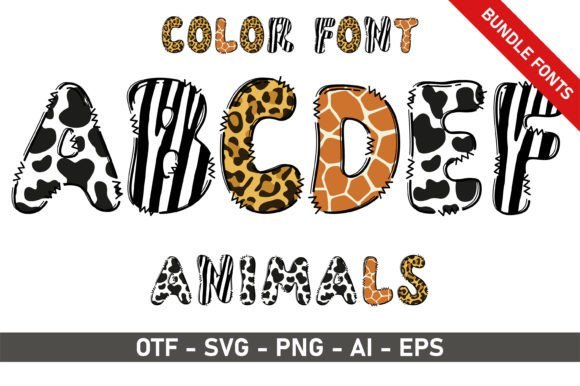
Bring Whimsy to Your Designs with the Animals Bundle Font
Do you remember the moment when you stumbled upon a font that made your design dreams come true? For me, it was the first time I saw the Animals Bundle Font in action. Its playful charm and vibrant colors instantly made me want to create something magical. Whether it’s a children’s book, a poster, or a greeting card, this font has the power to transport your audience to a world of wonder and excitement.
The Animals Bundle Font is a versatile and delightful collection of fonts designed to add a touch of whimsy to your designs. Its black version is perfect for projects that require a bold and easy-to-read font, while the color version offers a kaleidoscope of colors to match your creative vision. With its compatibility with popular cutting machines like Cricut and design programs like PhotoShop and Illustrator, this font is a valuable asset for any designer looking to add a playful twist to their work.
- Font Family: A comprehensive bundle of animal-themed fonts, including cats, dogs, birds, and more.
- Unique Characteristics: Each font features intricate details and realistic designs, making it perfect for animal-themed projects, logos, and branding.
- Number of Fonts: Includes over 100 unique animal-themed fonts to choose from, ensuring you’ll find the perfect fit for your design.
Review: Animals Bundle Font
Overall, I think the Animals Bundle Font is a cute and playful addition to any design project. Here are some of the things that I like about it: ✨
- The unique animal designs add a fun and whimsical touch to any text.
- The font is highly customizable, allowing users to change the color, size, and even add custom animations.
- The font is well-suited for a variety of projects, including children’s books, pet care websites, and more.
- The font may not be suitable for formal or professional projects, as it can come across as too casual or playful.
- The font is not as comprehensive as some other font bundles, with a limited selection of animal designs.
Overall, I think the Animals Bundle Font is a great option for designers who are looking for a fun and playful font to add some personality to their projects. However, it’s not the best choice for every project, and users should be aware of the potential limitations before making a purchase.
For the best results, use the Animals Bundle Font in conjunction with high-quality graphics and a clear, concise message. Experiment with different font sizes, colors, and styles to create a visually appealing design.
The Animals Bundle Font is ideal for:
- Children’s educational materials (e.g. posters, worksheets, etc.)
- Pet-related businesses (e.g. pet stores, veterinary clinics, etc.)
- Wildlife conservation campaigns (e.g. posters, brochures, etc.)